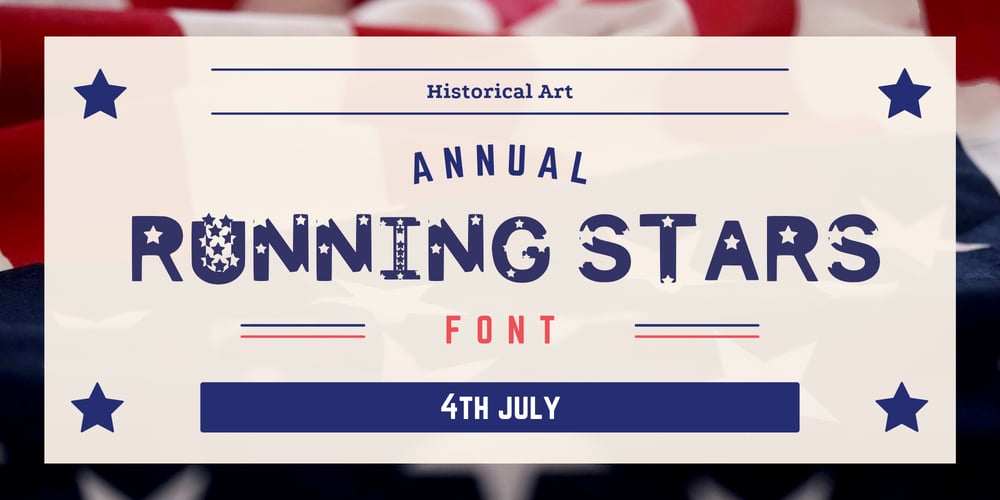
Running Stars
Running Stars font
Running Stars Font Family was designed by Abdessalam Eljabali and published by Funnyarti. Running Stars contains 1 styles and family package options. Running Stars is a chic and festive decorative font. This original look will appeal to a wide range of crafty ideas, from letterheads and titles, to stationery.